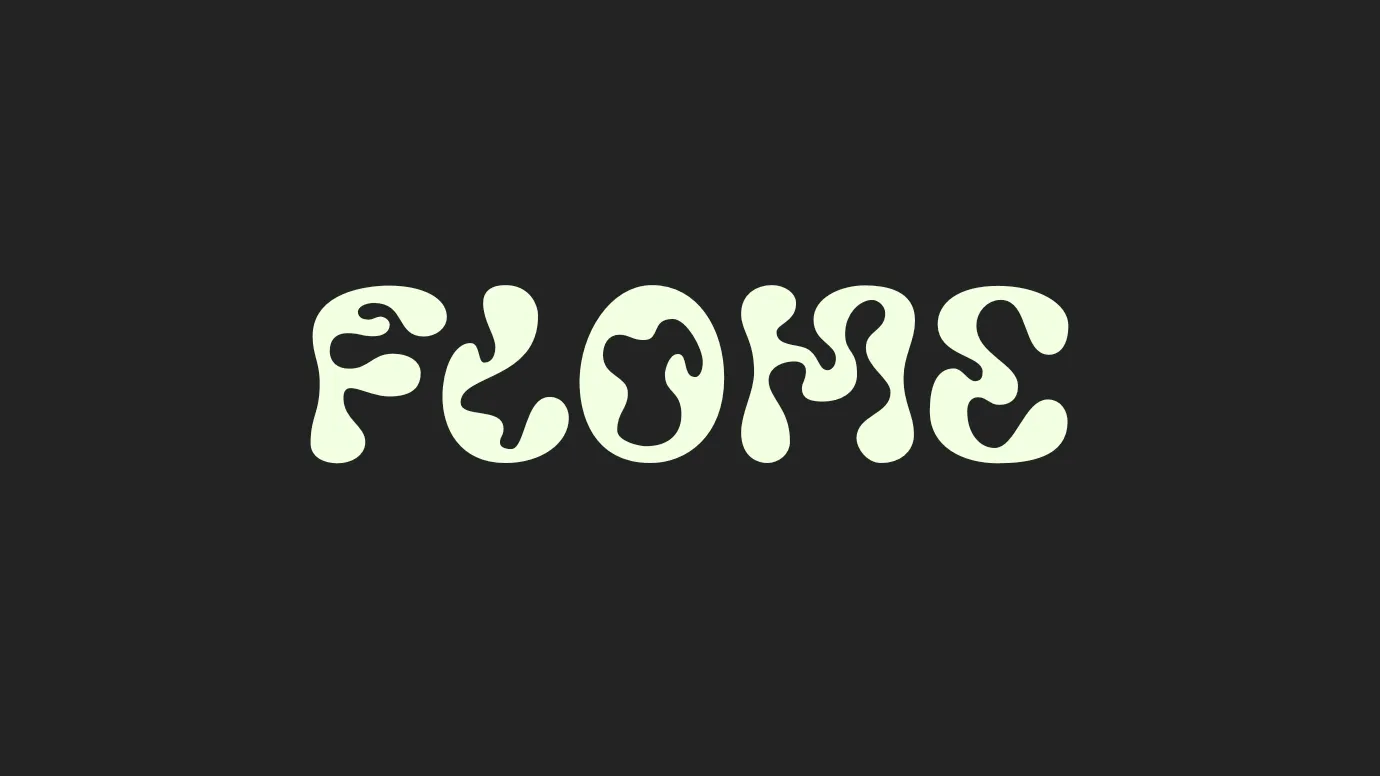
Flome Font Family is a very graceful fancy font with a unique look it was designed by Sander Flink. All the characters of this typeface are very attractive with round edges. It has one regular style but you can use it for making so many amazing projects.
Flome Font